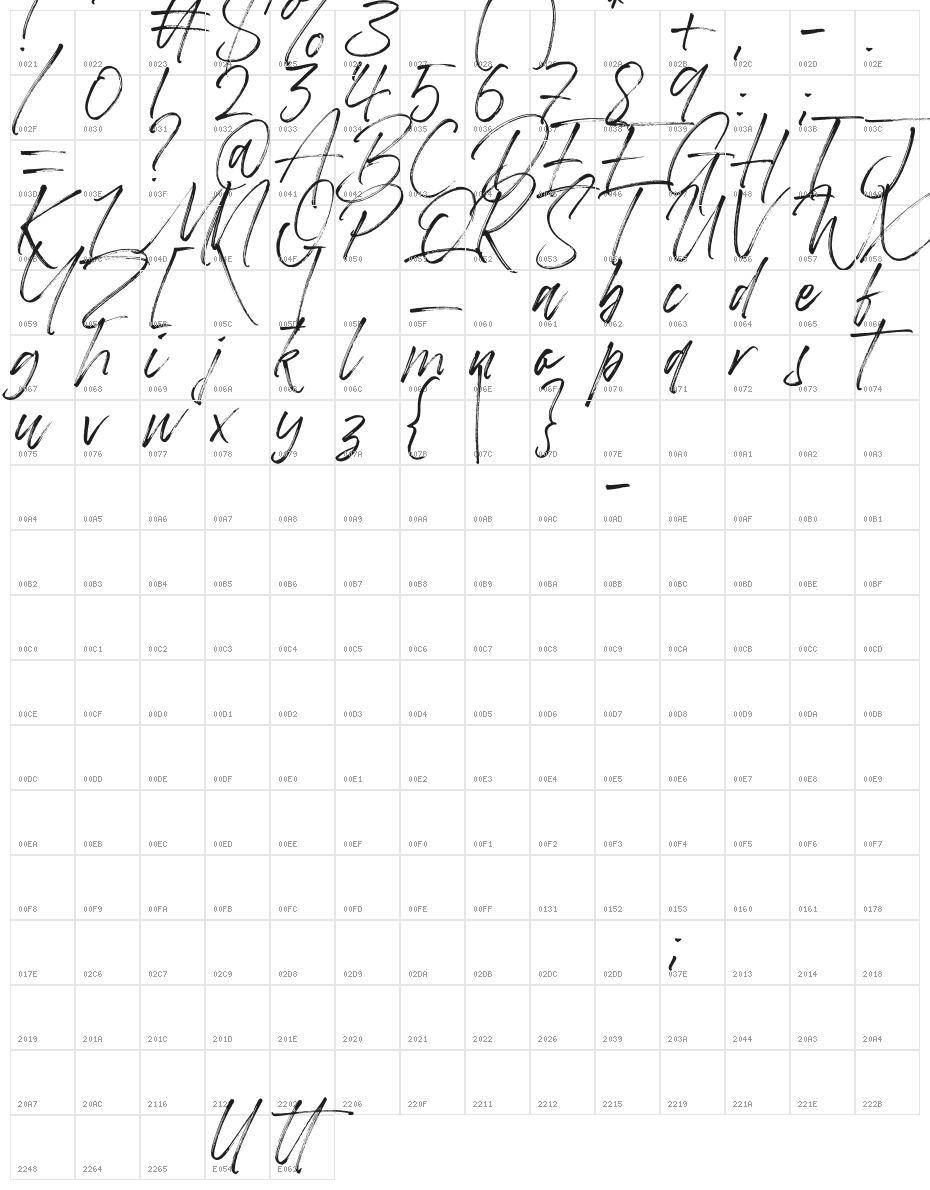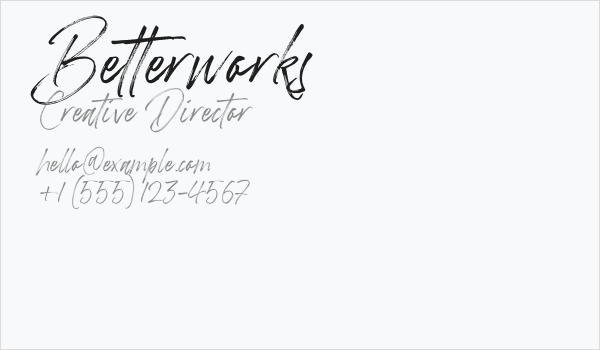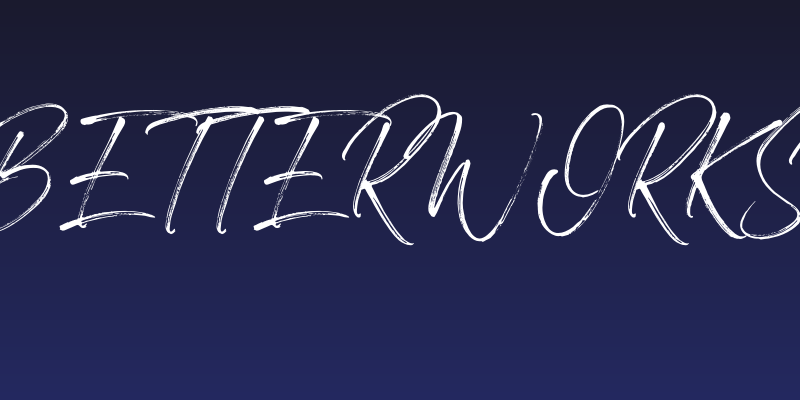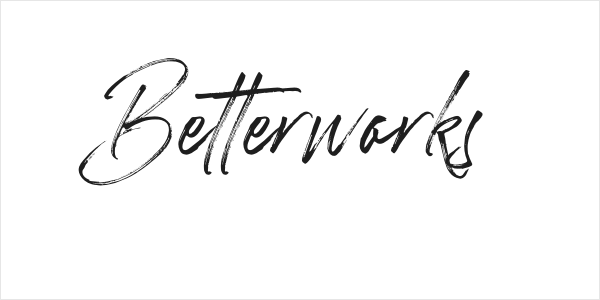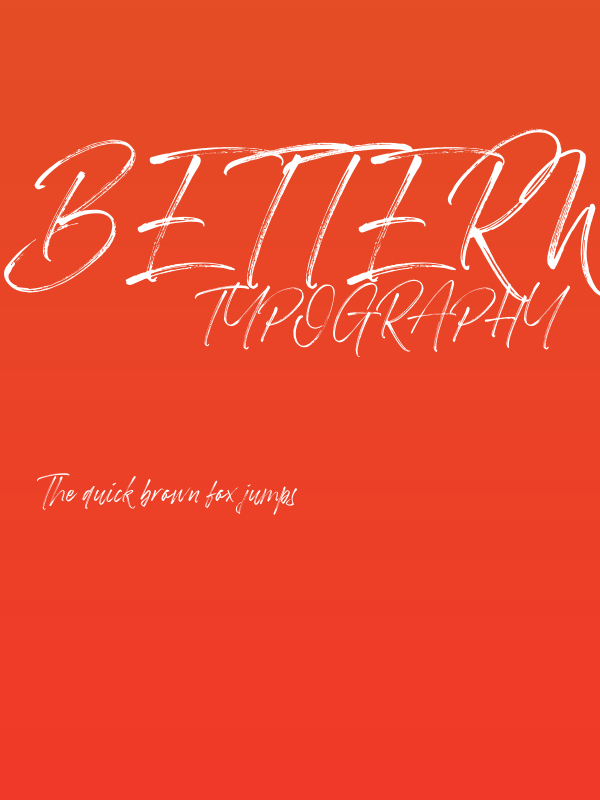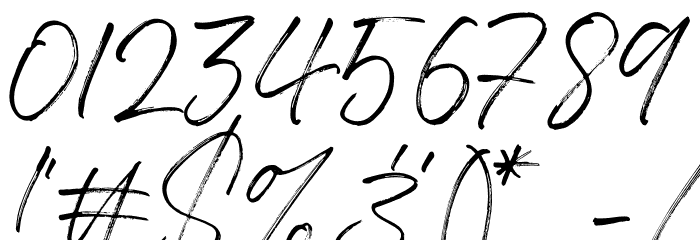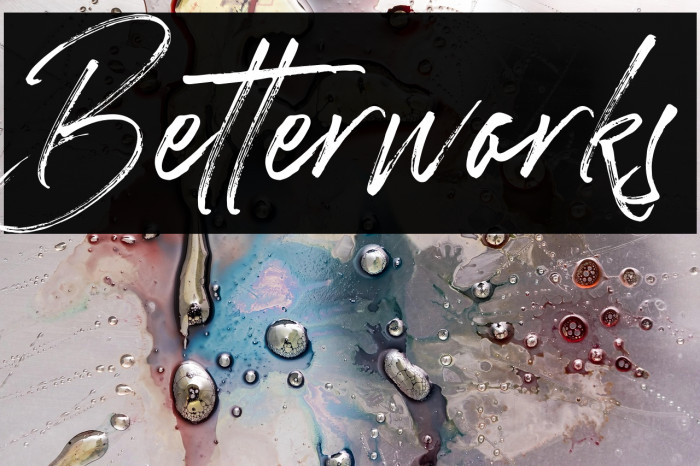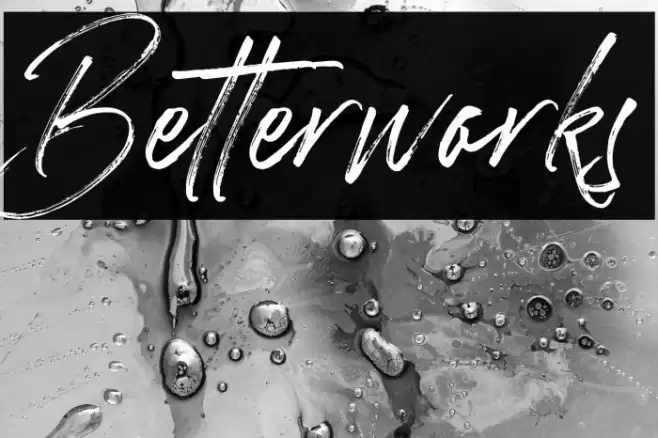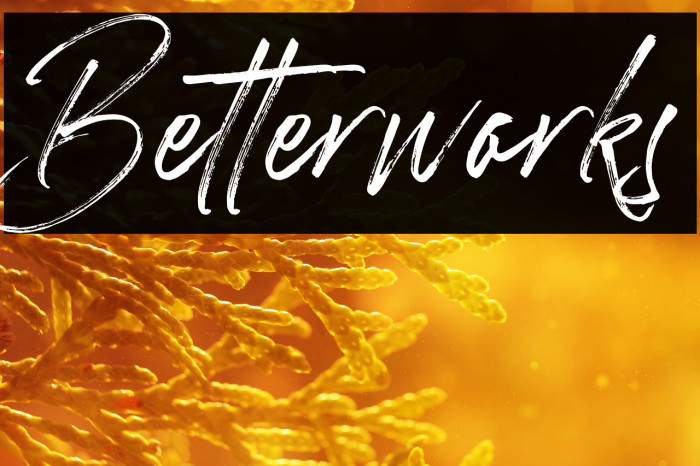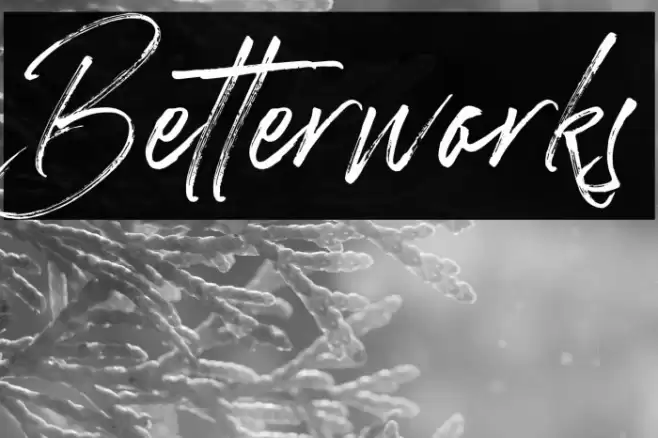
Betterworks Font
| Caso de uso | Logos, Headlines, Artistic projects |
| Projetos propostos | Ideal for greeting cards, invitations, branding, and artistic projects that require a personal and creative touch. |